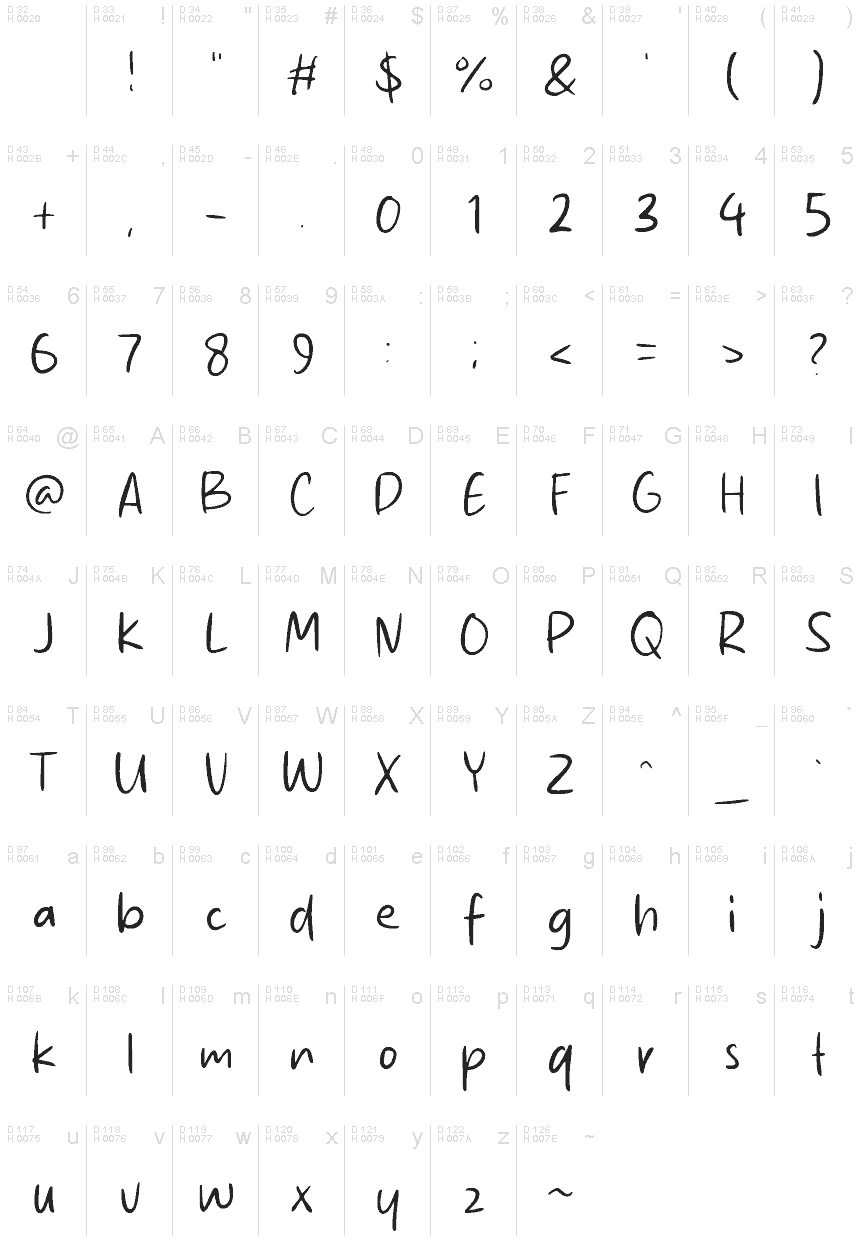
Compass Book
Compass Book is a script font designed and shared by MJType. You can use it in your digital or printed projects and it works for anything that requires a handmade look with a very unique touch.
This hand-written font was inspired by the books, stories, and magazines of the 1950s. Take a look at the demo, which offers a unique set of characters. This freebie is available for your personal projects.